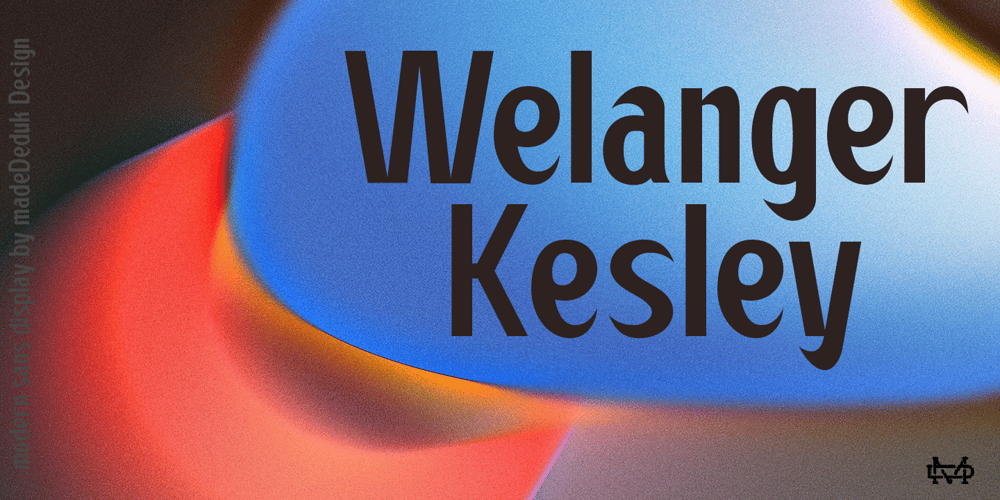
Welanger Kesley Font Family was designed by madededuk and published by madeDeduk. Welanger Kesley contains 1 styles and family package options. Introducing Welanger Kesley is a Display Sans, use this font for any branding, product packaging, invitation, quotes, label, poster, logo etc.Feature Uppercase & Lowercase Number & Symbol International Glyphs Multilingual support Alternative Ligature Feel free to drop us a message any time and follow my shop for upcoming updatesHope you enjoy it.